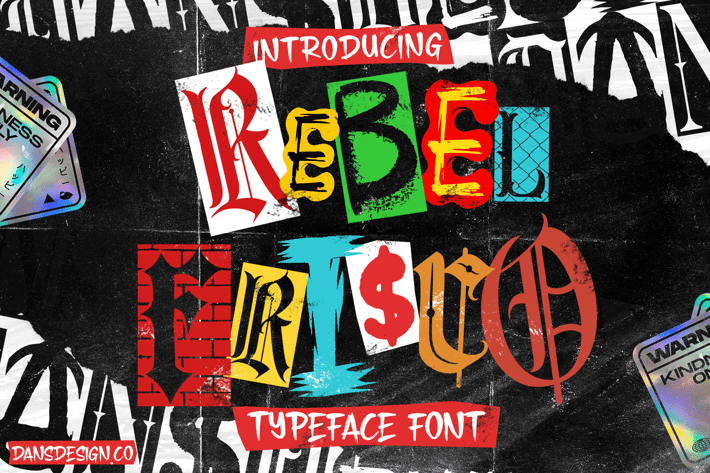
REBEL FRISCO Graffiti Urban Y2k Font
REBEL FRISCO Graffiti Urban Y2k Font a distinct, highly detailed. GRAFFITI Urban Display Font.
It would make a great choice for exquisite retro-urban designs, business branding, logos, Apparel designs, and more.
REBEL FRISCO Graffiti Urban Y2k Font a distinct, highly detailed. GRAFFITI Urban Display Font.
It would make a great choice for exquisite retro-urban designs, business branding, logos, Apparel designs, and more.